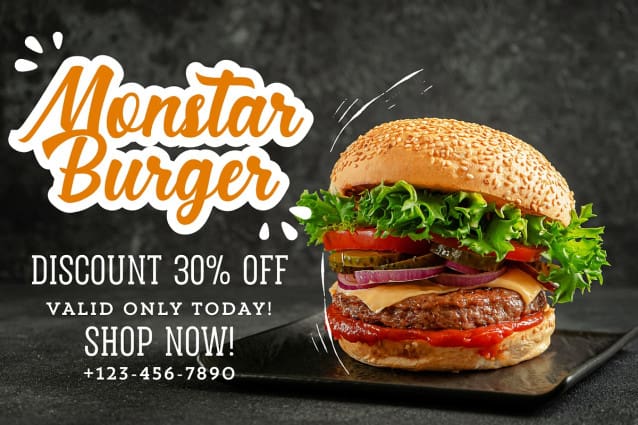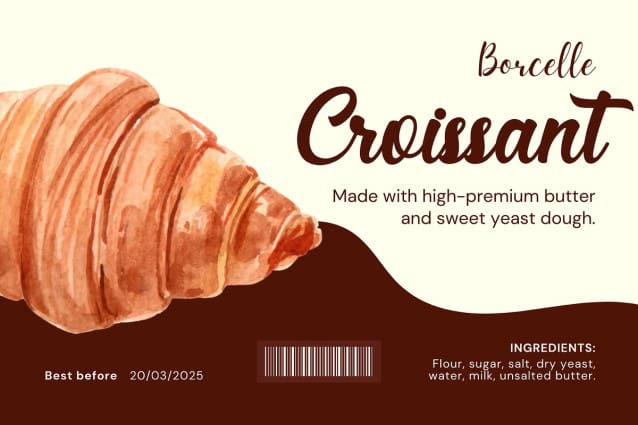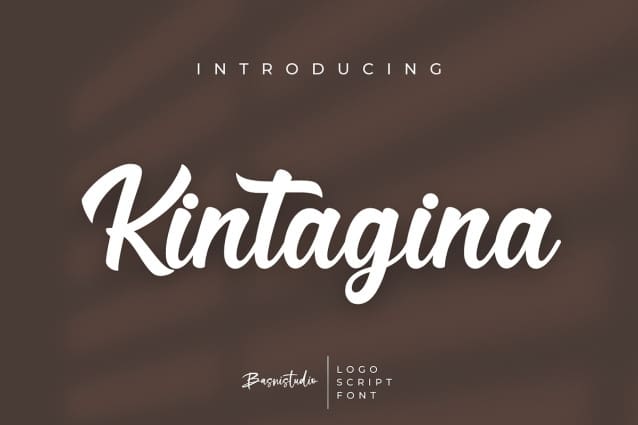
Kintagina Script Font
Kintagina Script Font with Effortless Elegance: Perfectly crafted curves for a timeless handwritten feel. Versatile Uses: Ideal for wedding invitations, branding, social media graphics, and more. User-Friendly: Includes multilingual support, ligatures, and alternative glyphs for endless creativity. High Quality: Precision engineered for both print and digital purposes.